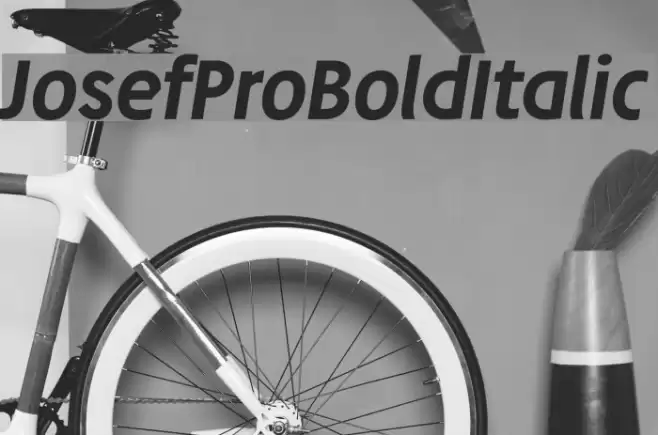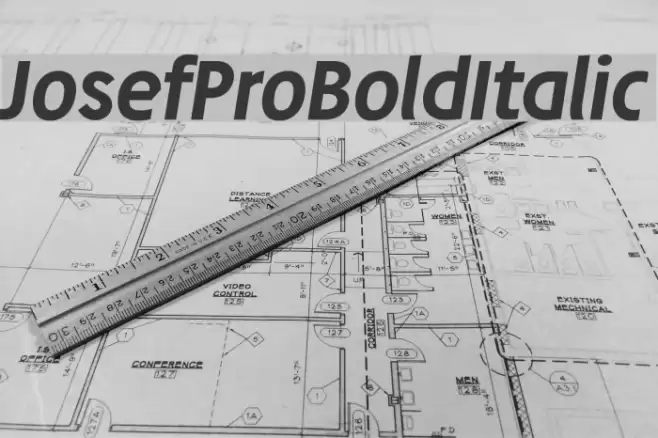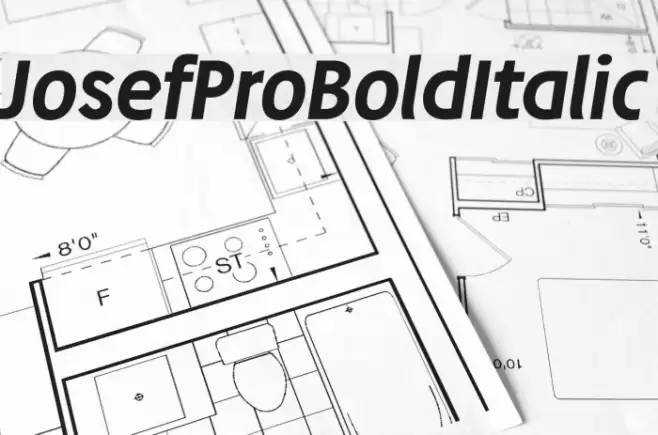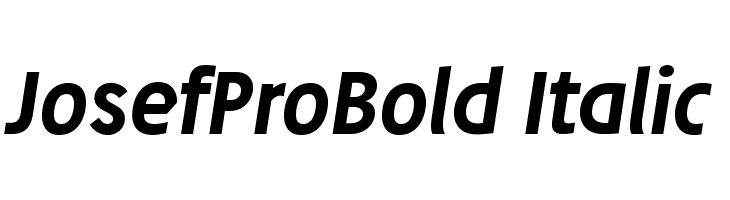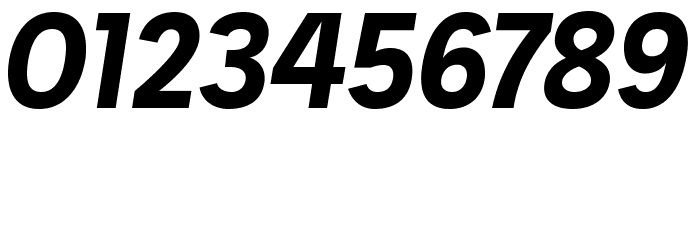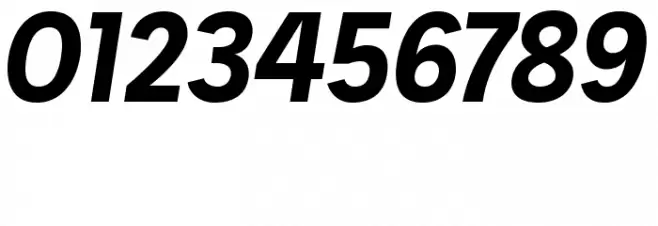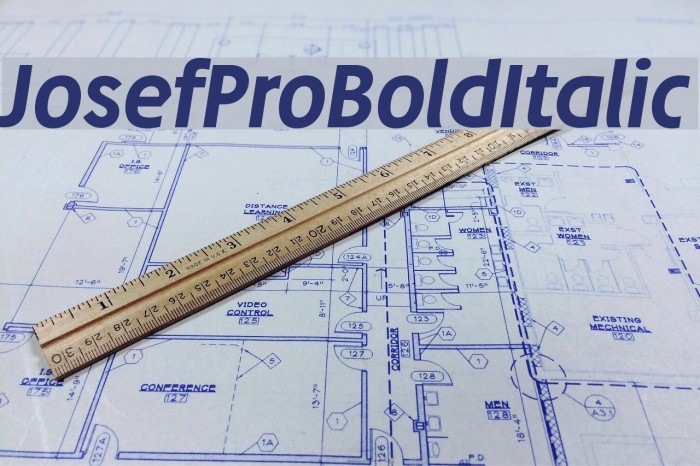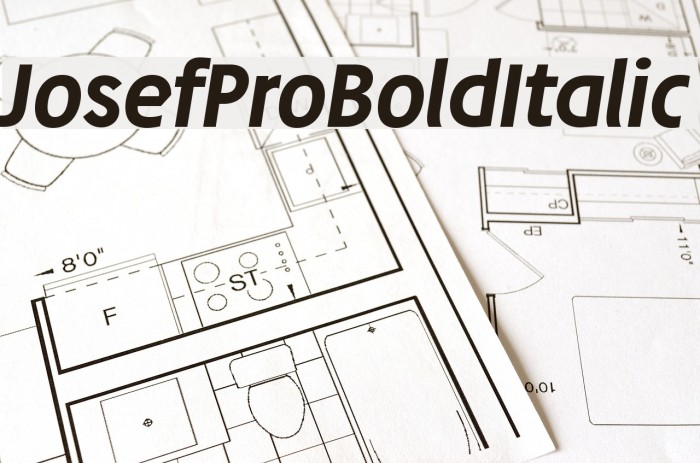
JosefProBold-Italic Font
JosefProBold-Italic Description
This typeface features a bold and italicized style, combining strength with a dynamic slant. The characters are well-defined with a consistent stroke width, providing a modern and assertive appearance. The uppercase letters are slightly taller than the lowercase, maintaining readability while adding a touch of elegance. The numbers are clear and distinct, matching the overall boldness of the alphabet. Special characters are designed to integrate seamlessly with the rest of the font, ensuring versatility across various applications. The italic slant adds a sense of motion and fluidity, making it suitable for both formal and informal contexts.
A bold, italicized typeface with a modern and dynamic style from Uncategorized fonts.
- Proposed Projects: Ideal for branding, advertising, headlines, and digital media where a strong, modern presence is needed.
- Use Case: Headlines, Logos, Advertising